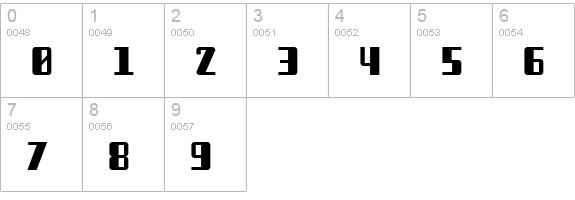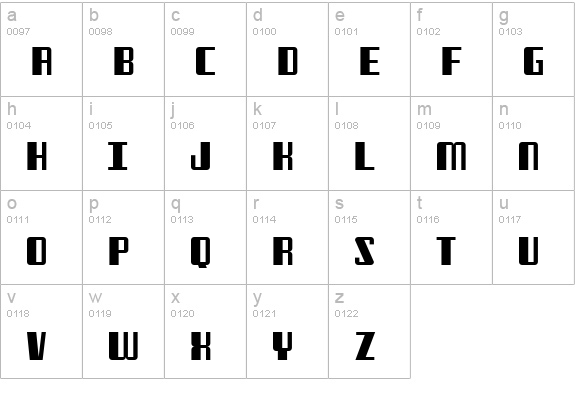
Introducing Freezer BTN font - a sleek and modern typeface that exudes cool sophistication. This font is perfect for adding a touch of contemporary flair to your designs, whether for branding, advertising, or personal projects. With its clean lines and elegant curves, Freezer BTN font brings a sense of professionalism and style to any creative endeavor. And the best part? It's completely free to download at FontsMarket.com, making it easily accessible for all your design needs. Add a touch of class to your work with Freezer BTN font today!